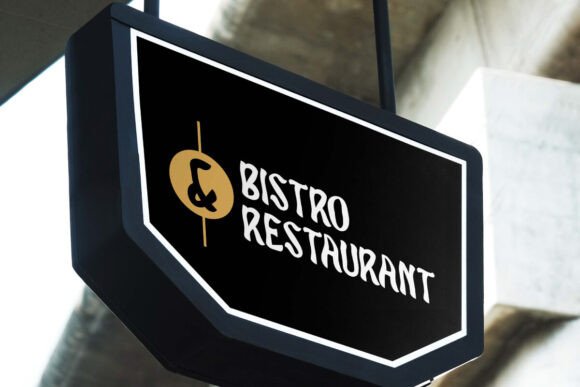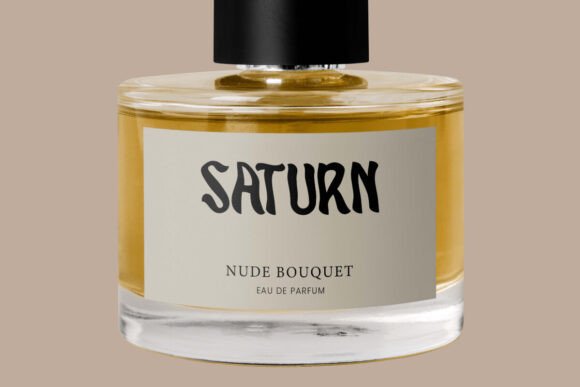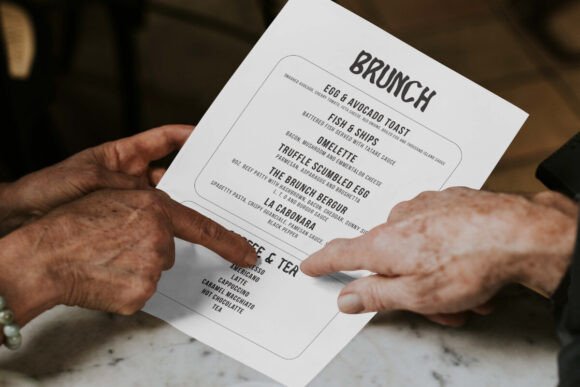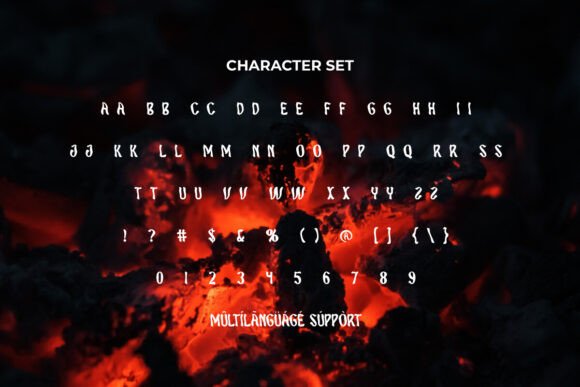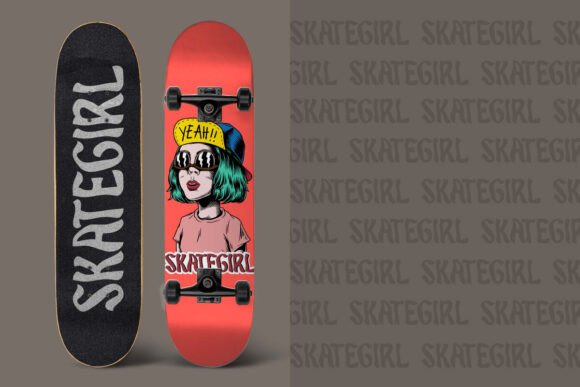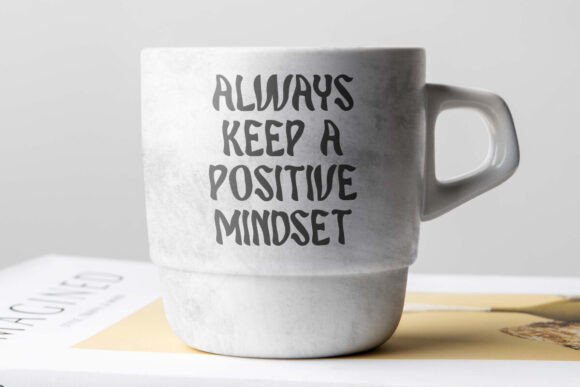
Unleash the Horror: Introducing Askhole Font, the Ultimate Display Font for Designers and Crafters
Are you a designer or crafter looking for a font that will add a touch of horror and elegance to your designs? Look no further than Askhole Font, a bold and eye-catching display font that’s perfect for a wide range of projects. With its unique wavy line shape, this font is sure to make your designs stand out from the crowd.
What is Askhole Font?
Askhole Font is a horror display font that’s designed to add a touch of darkness and sophistication to your designs. This font features a distinctive wavy bold line shape that gives it an attractive and eye-catching look. Whether you’re creating a brand image, business card, or poster, Askhole Font is the perfect choice for designers and crafters who want to add a touch of horror to their designs.
Key Features of Askhole Font
So, what makes Askhole Font so special? Here are just a few of its key features:
- Wavy Bold Line Shape: The font’s unique wavy line shape gives it a distinctive and eye-catching look that’s sure to grab attention.
- Horror Theme: With its bold and dramatic design, Askhole Font is perfect for designers and crafters who want to add a touch of horror to their designs.
- Versatile: Askhole Font is suitable for a wide range of designs, including brand images, business cards, catalogs, covers, custom designs, invitations, labels, menus, posters, quotes, signage, stationery, web designs, and more!
Uses of Askhole Font
Askhole Font is a versatile font that can be used for a wide range of designs. Here are just a few ideas to get you started:
- Brand Images: Use Askhole Font to create bold and eye-catching brand images that will help your business stand out.
- Business Cards: Add a touch of horror to your business cards with Askhole Font, perfect for designers, artists, and other creative professionals.
- Posters: Create eye-catching posters with Askhole Font that’s sure to grab attention.
- Custom Designs: Use Askhole Font to create custom designs for your clients, including logos, brochures, and more.
- Invitations: Add a touch of elegance and horror to your invitations with Askhole Font, perfect for weddings, parties, and other special events.
Why Choose Askhole Font?
So, why should you choose Askhole Font for your designs? Here are just a few reasons:
- Unique Design: Askhole Font features a unique and eye-catching design that’s sure to make your designs stand out.
- Versatile: This font is suitable for a wide range of designs, making it a great addition to any designer’s toolkit.
- Elegant: Despite its horror theme, Askhole Font has an elegant and sophisticated look that’s perfect for designers and crafters who want to add a touch of class to their designs.
In conclusion, Askhole Font is a must-have for designers and crafters who want to add a touch of horror and elegance to their designs. With its unique wavy bold line shape and versatile design, this font is perfect for a wide range of projects. Whether you’re creating brand images, business cards, posters, or custom designs, Askhole Font is the perfect choice. So why wait? Download Askhole Font today and unleash the horror in your designs!
Here are a few tips and tricks to help you get the most out of Askhole Font:
- Experiment with Different Sizes: Askhole Font looks great in large sizes, but it can also be used for smaller designs, such as business cards and labels.
- Pair with Other Fonts: Try pairing Askhole Font with other fonts to create a unique and eye-catching design.
- Use for Headlines: Askhole Font is perfect for headlines and titles, where its bold and dramatic design can really shine.
We hope this article has provided you with a comprehensive overview of Askhole Font, the ultimate horror display font for designers and crafters. With its unique design, versatility, and elegance, this font is sure to become a favorite in your design toolkit.